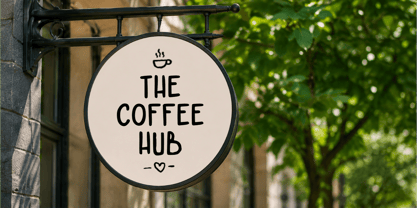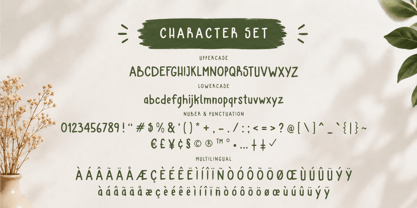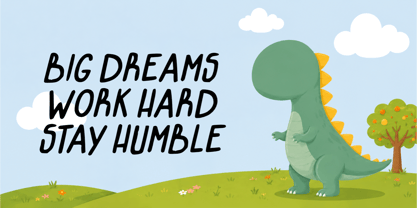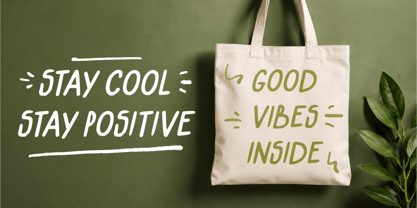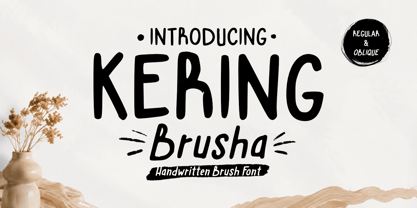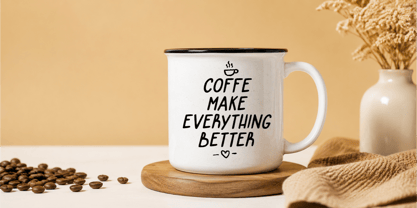
Kering Brusha
by Letterytz CalliType
The Kering Brusha Font Family was designed by Wahyu Eka Prasetya, Dian Angga Marytama and published by Letterytz CalliType. Kering Brusha contains 2 styles and family package options. More about this family
Kering Brusha is a playful handcrafted brush font that combines bold organic strokes with a natural handwritten feel. Designed to bring warmth, creativity, and personality to your projects, this font features smooth curves, slightly irregular letterforms, and an authentic brush-drawn appearance. Perfect for logos, branding, packaging, social media content, posters, children’s products, greeting cards, invitations, merchandise, and creative typography projects. Its friendly and expressive style makes Kering Brusha an excellent choice for designers seeking a fun, casual, and memorable visual identity.
Features
• Uppercase & Lowercase Characters
• Numbers & Punctuation
• Multilingual Support
• Smooth Handcrafted Brush Style
• Style: Regular & Oblique
Designers: Wahyu Eka Prasetya, Dian Angga Marytama
Foundry: Letterytz CalliType